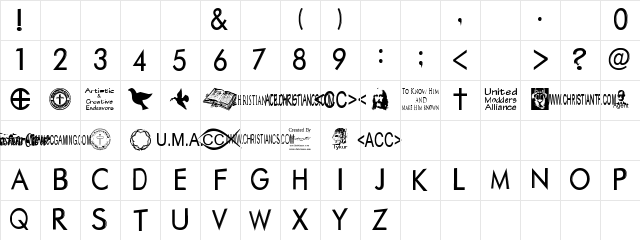
Christian Crew Regular Free Font
Christian Crew Regular
Designer: Thamyris
Complete Christian Crew Regular glyph index. Displaying only characters natively supported by Christian Crew Regular font.
Design Context for Christian Crew
Christian Crew is a composed and adaptable typeface that performs quietly and consistently across a wide range of design contexts.